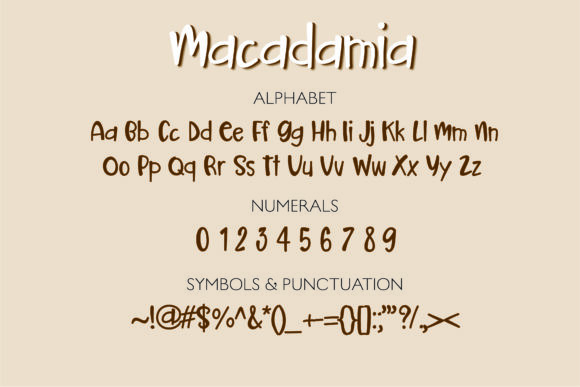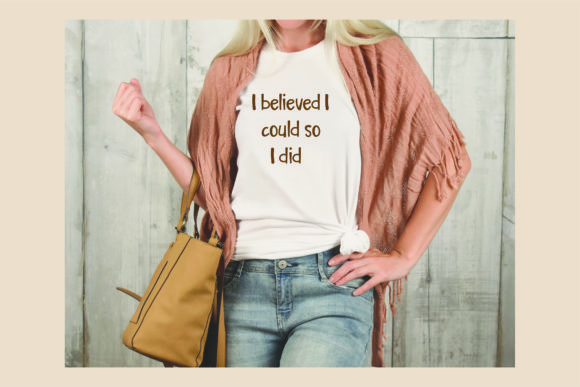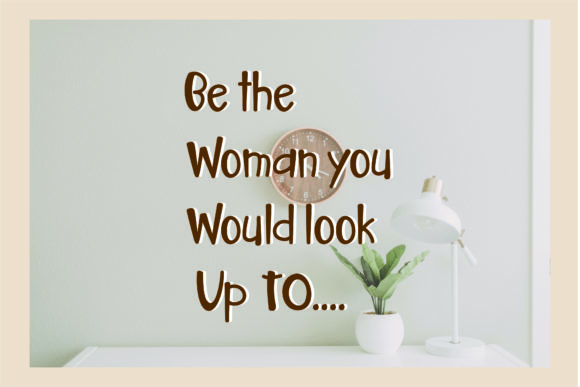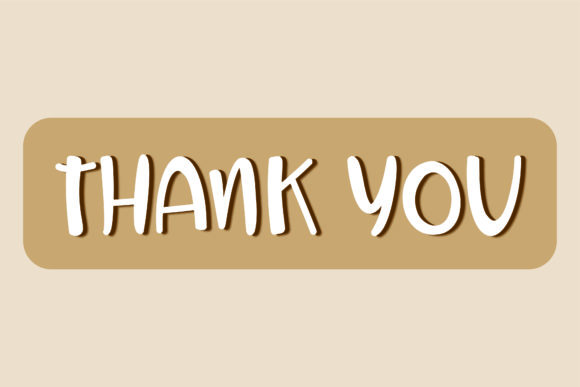
Introduction to Macadamia Font
Do you ever find yourself stuck in a creative rut, searching for the perfect font to bring your design to life? I know I have! It was during one of those moments when I stumbled upon the Macadamia Font. Its charming handwritten style and natural feel instantly captured my attention, and I knew I had to share it with the world.
The Macadamia Font is a high-quality, versatile design resource that’s perfect for any creative project. With its unique and friendly character, it’s incredibly fitting for a wide range of designs, from elegant invitations to playful social media graphics. And the best part? It’s available for free download, making it an accessible design resource for designers of all levels.
Whether you’re a seasoned pro or just starting out, the Macadamia Font is a valuable addition to any design toolkit. Its transparent background and customizable options make it a breeze to work with, and its sweet, handwritten style is sure to add a touch of personality to any design project.
Key Features of Macadamia Font
- High-quality, elegant script font perfect for creative projects and design resources.
- Features a transparent background, allowing for easy customization and versatility.
- Designed with a modern, sophisticated aesthetic, making it ideal for wedding invitations, branding, and other high-end design projects.
- Includes a range of language support, including Latin, Cyrillic, and Greek, making it suitable for international design projects.
Honest Review: Macadamia Font
As a designer, I’m always on the lookout for high-quality design resources to enhance my creative projects. Recently, I stumbled upon the Macadamia Font, and I must say, it’s been a delightful addition to my toolkit.
What works well about the Macadamia Font is its elegant, modern design. The font’s clean lines and subtle curves make it perfect for a variety of creative projects, from digital signage to branding materials. I particularly appreciate the transparent background, which allows for seamless integration with other design elements.
- ✨ Elegant, modern design
- ✨ Perfect for a variety of creative projects
- ✨ Transparent background for seamless integration
While the Macadamia Font is an excellent addition to any designer’s toolkit, there are some limitations to consider. The font family is relatively small, and some users may find the font sizes a bit inconsistent. Additionally, the font’s scalability could be improved for use in large-scale projects.
Overall, I’m impressed with the Macadamia Font’s high quality and versatility. It’s a great design resource for anyone looking to add a touch of elegance to their creative projects. ⚠️ Just be aware of the limitations mentioned above, and you’ll be all set to create stunning designs with this font.
Tips for Getting the Most Out of Macadamia Font
Experiment with different font sizes and styles to create visually appealing designs. Use Macadamia Font with a transparent background to add depth and interest to your creative projects. With its high-quality features and free download option, Macadamia Font is a valuable design resource for any project.
Macadamia Font is suitable for a wide range of creative projects, including graphics, presentations, and documents. Use it to add a touch of elegance and sophistication to your designs, or to create bold and eye-catching graphics. With its high-quality features and free download option, Macadamia Font is a great design resource for any project.